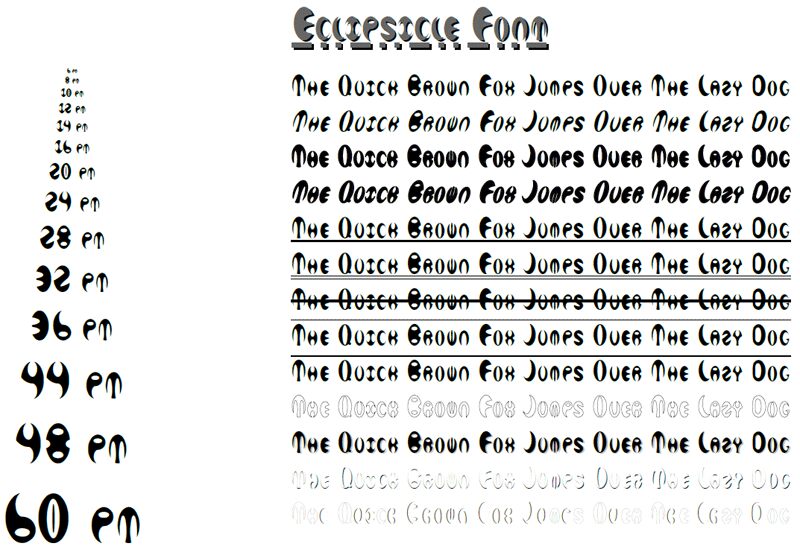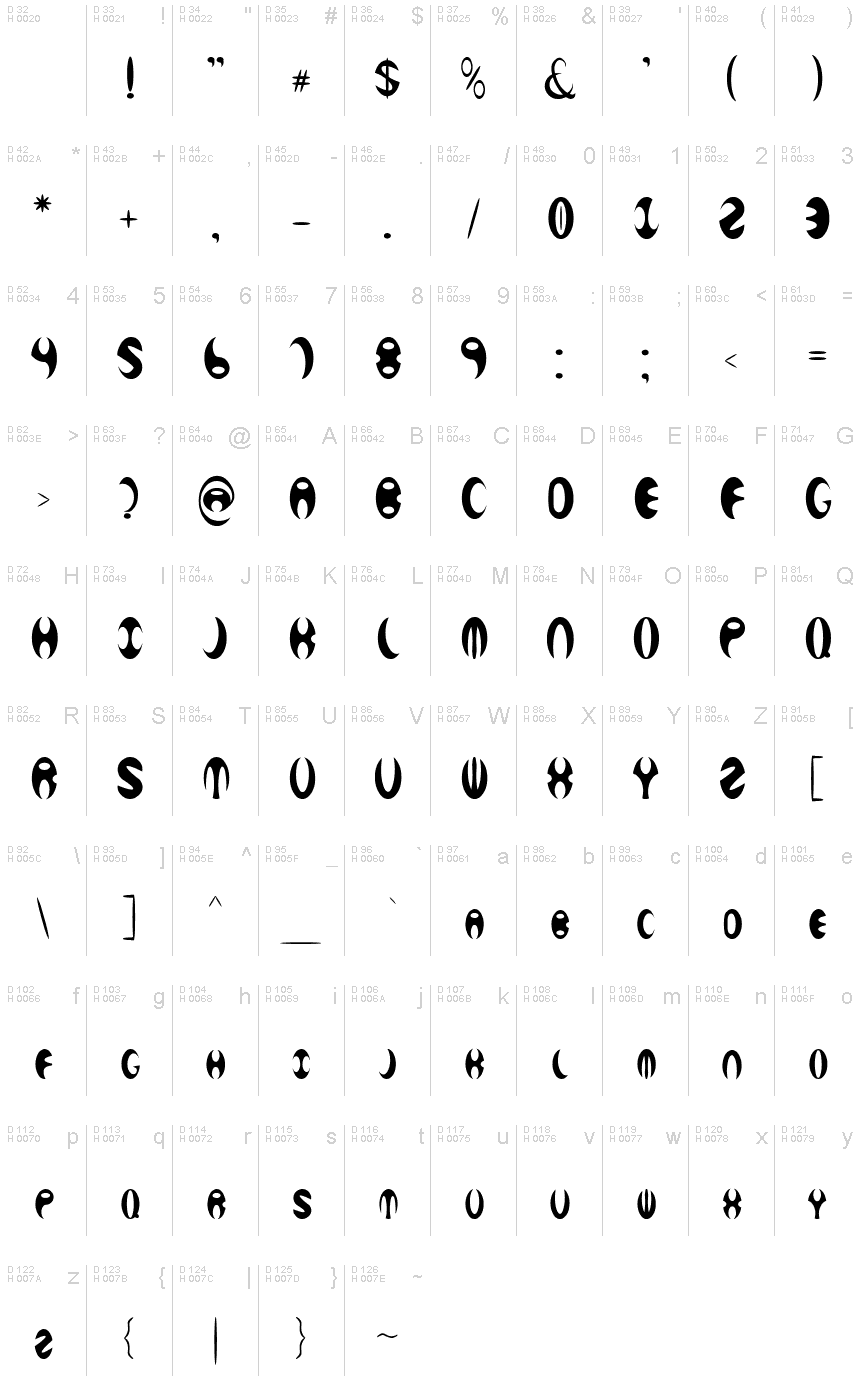
Eclipsicle
Eclipsicle, the bold and condensed display font designed by Drusilla, is a versatile typeface suitable for various projects. Its sharp edges and geometric shapes make it perfect for modern designs, such as tech or fashion branding. The condensed width allows for efficient use of space in editorial layouts and packaging design. Eclipsicle's bold weight demands attention in headlines, titles, and logos. Bring your designs to new heights with Eclipsicle - the font that makes a statement.
This font was inspired by trying to create each character from a circular or eclipse shape.